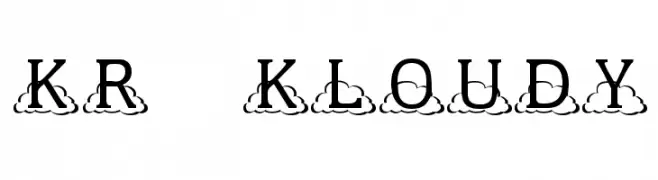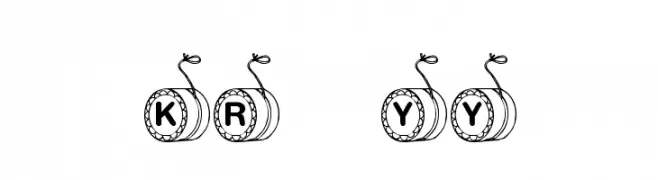
A playful font with each letter inside a heart shape, perfect for romantic themes.
A whimsical font with bold letters and snail illustrations, perfect for playful designs.
A whimsical, cloud-embellished decorative font ideal for creative headlines.
A playful font with each letter encased in a yo-yo design, perfect for fun and youthful projects.
A whimsical, heart-themed decorative font perfect for romantic or playful designs.
A decorative font with heart-themed icons, perfect for romantic designs.
A decorative font with snowflake motifs, perfect for festive designs.
A decorative font with characters set in birthday cake designs, perfect for festive occasions.
A playful font with letters inside caramel apple shapes, perfect for festive designs.
A whimsical font with ladybug motifs, perfect for playful and creative designs.